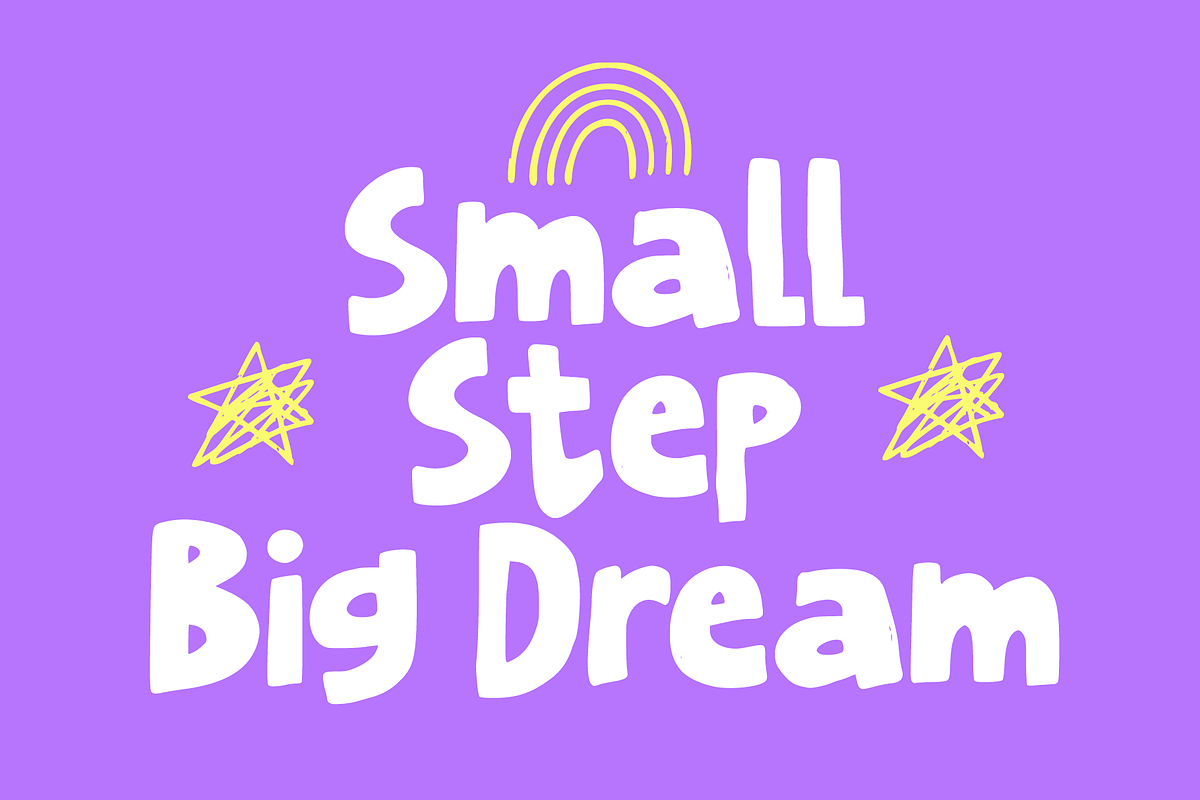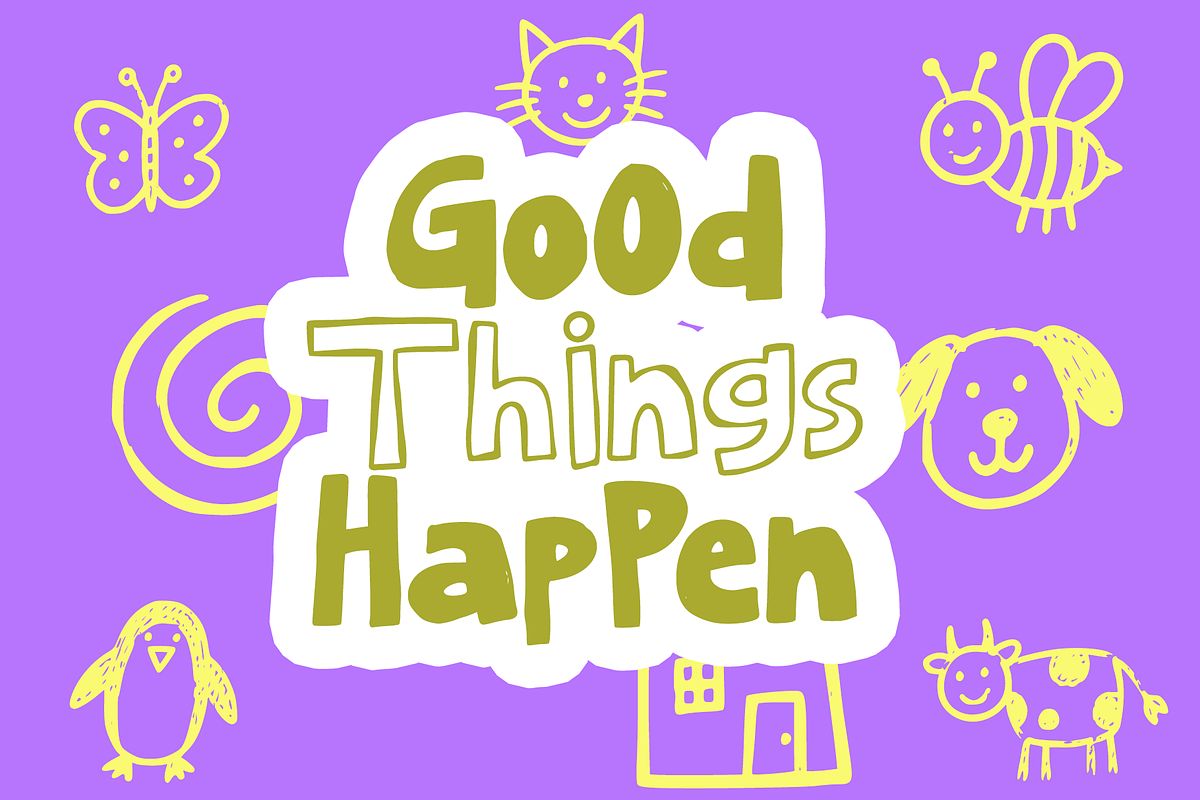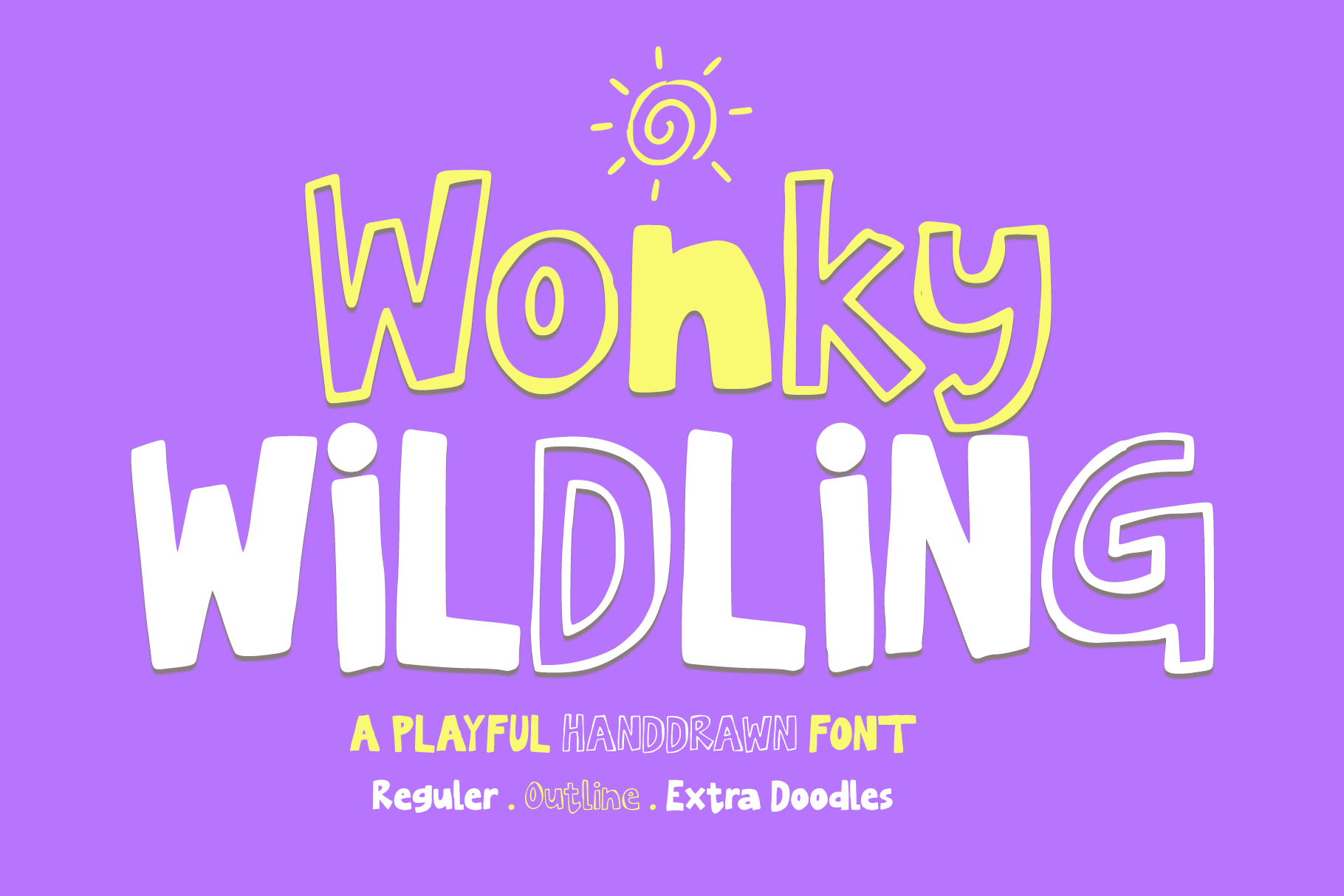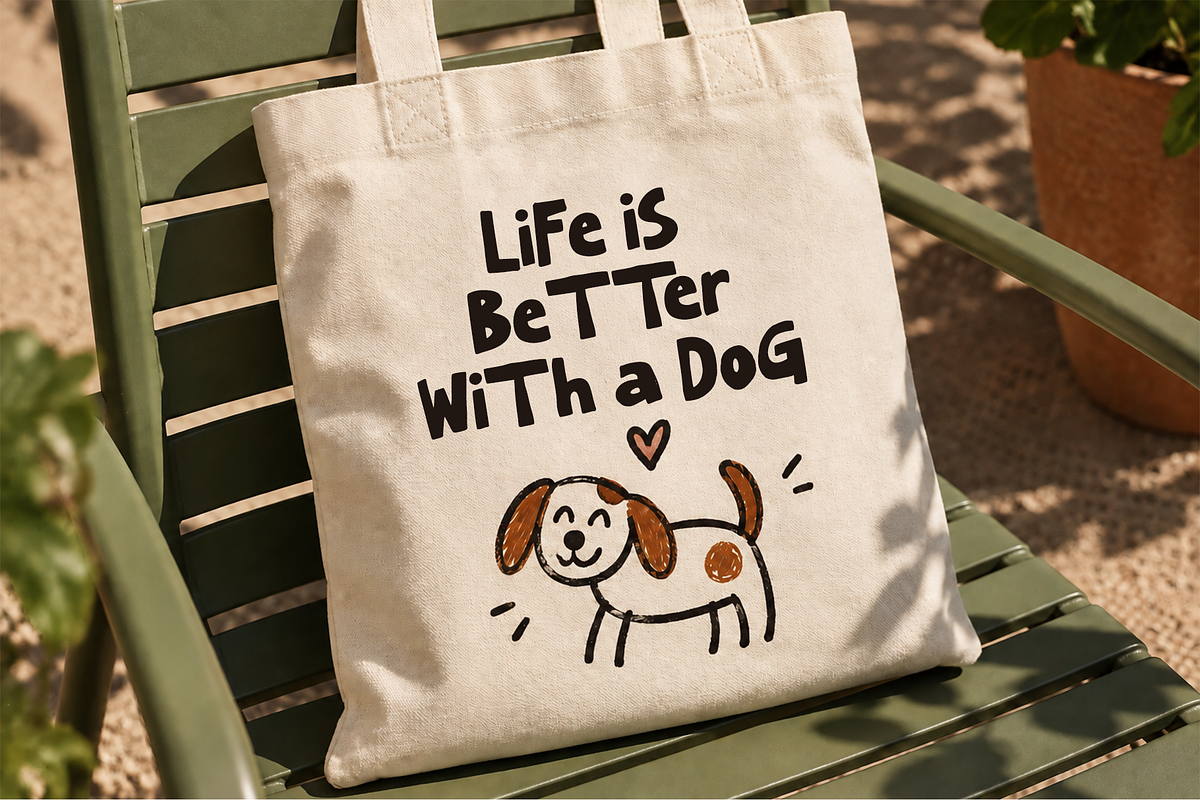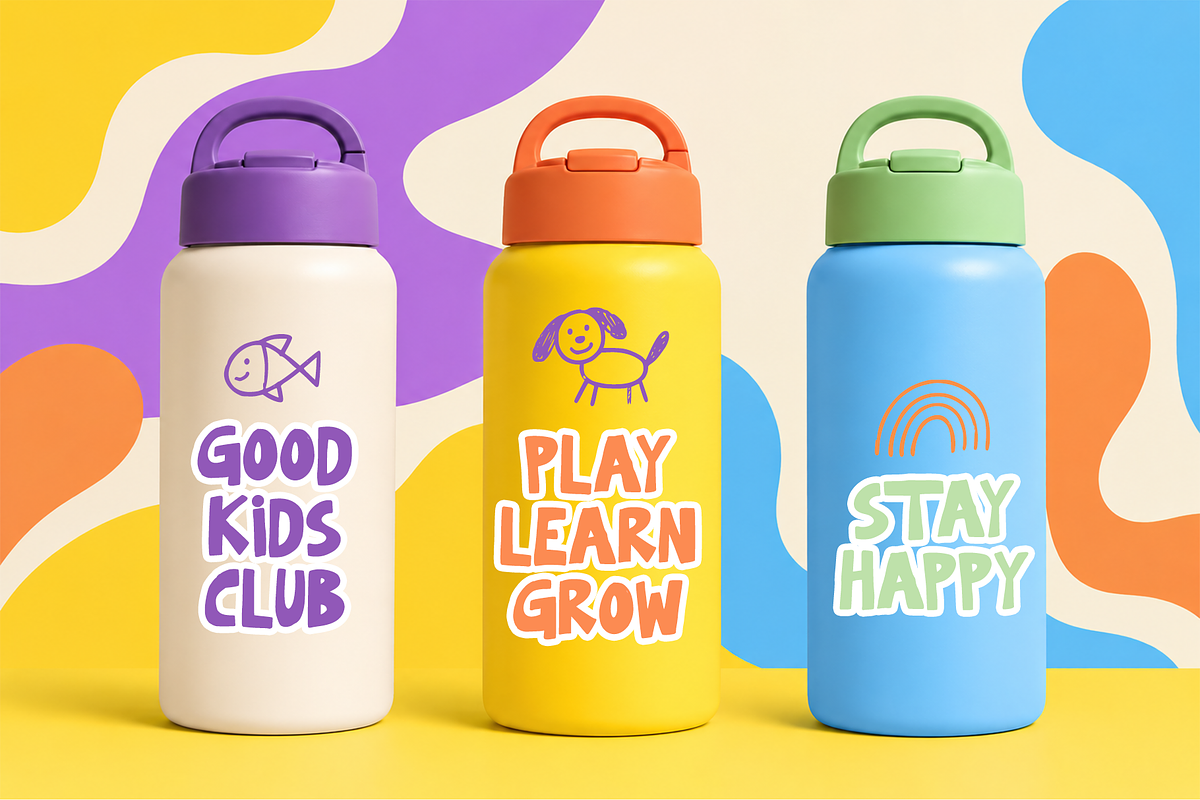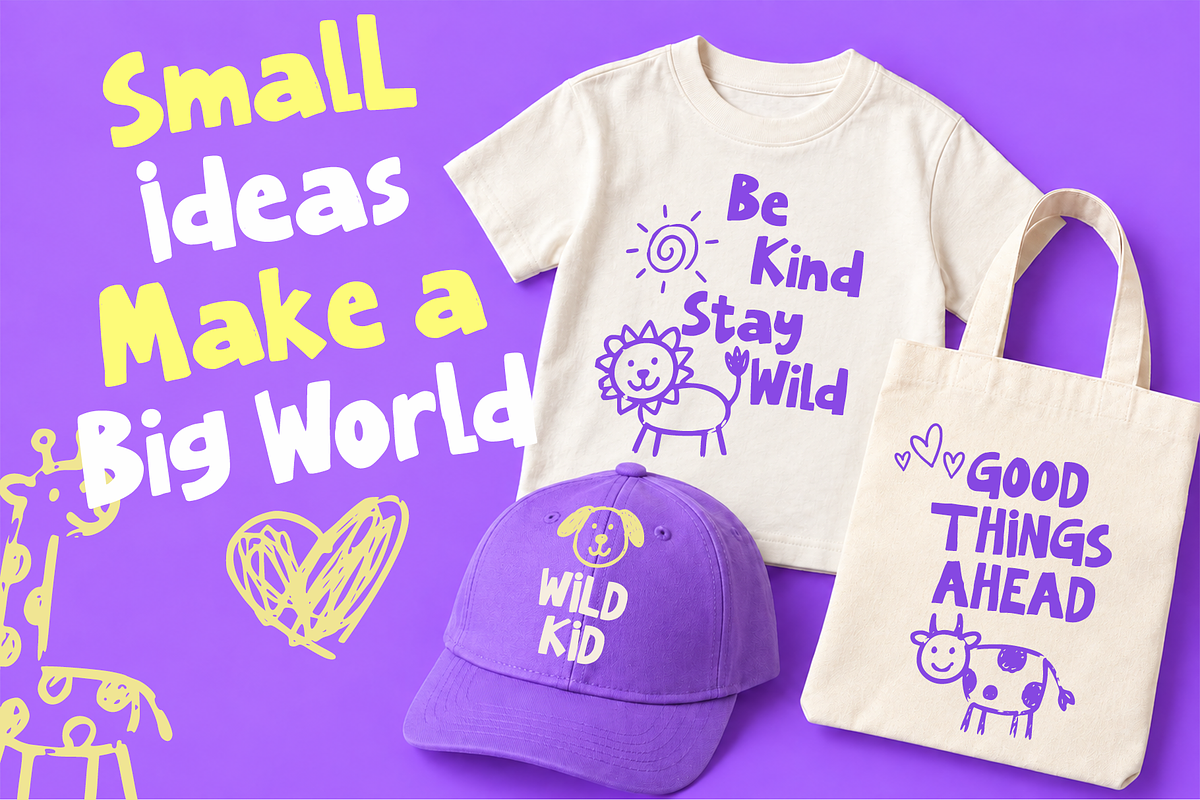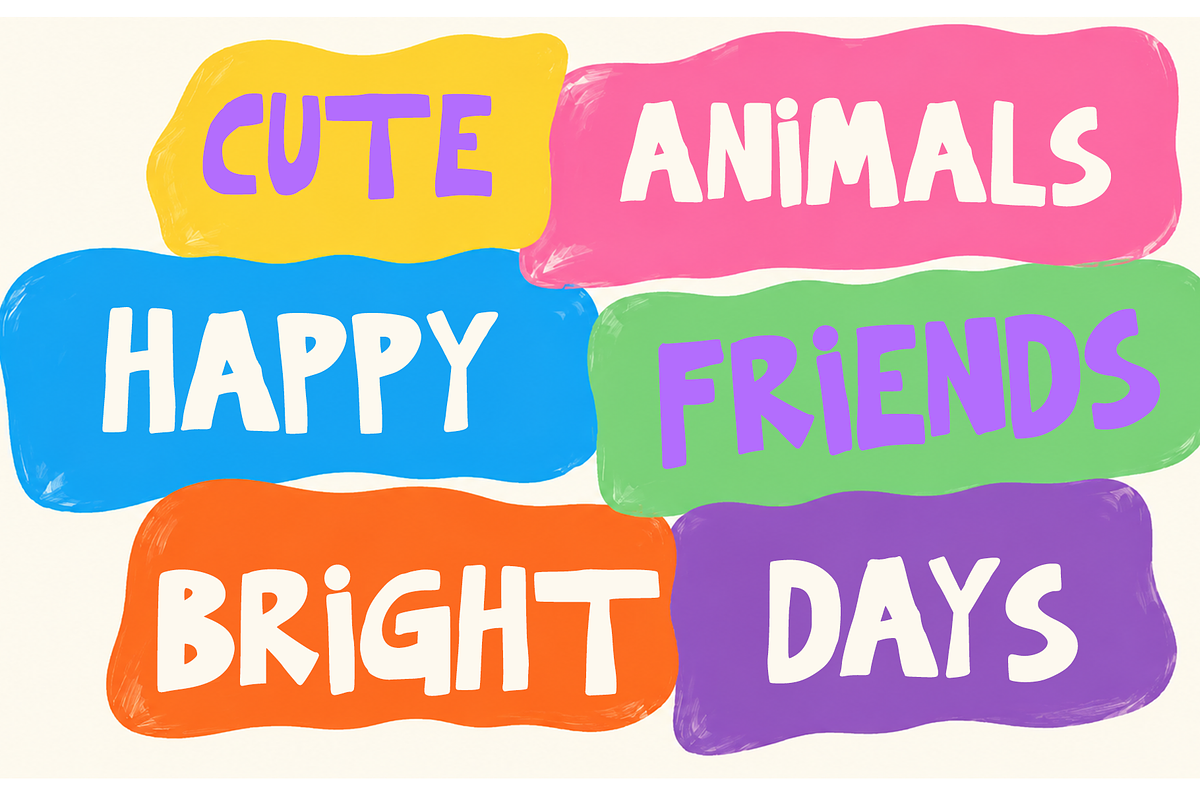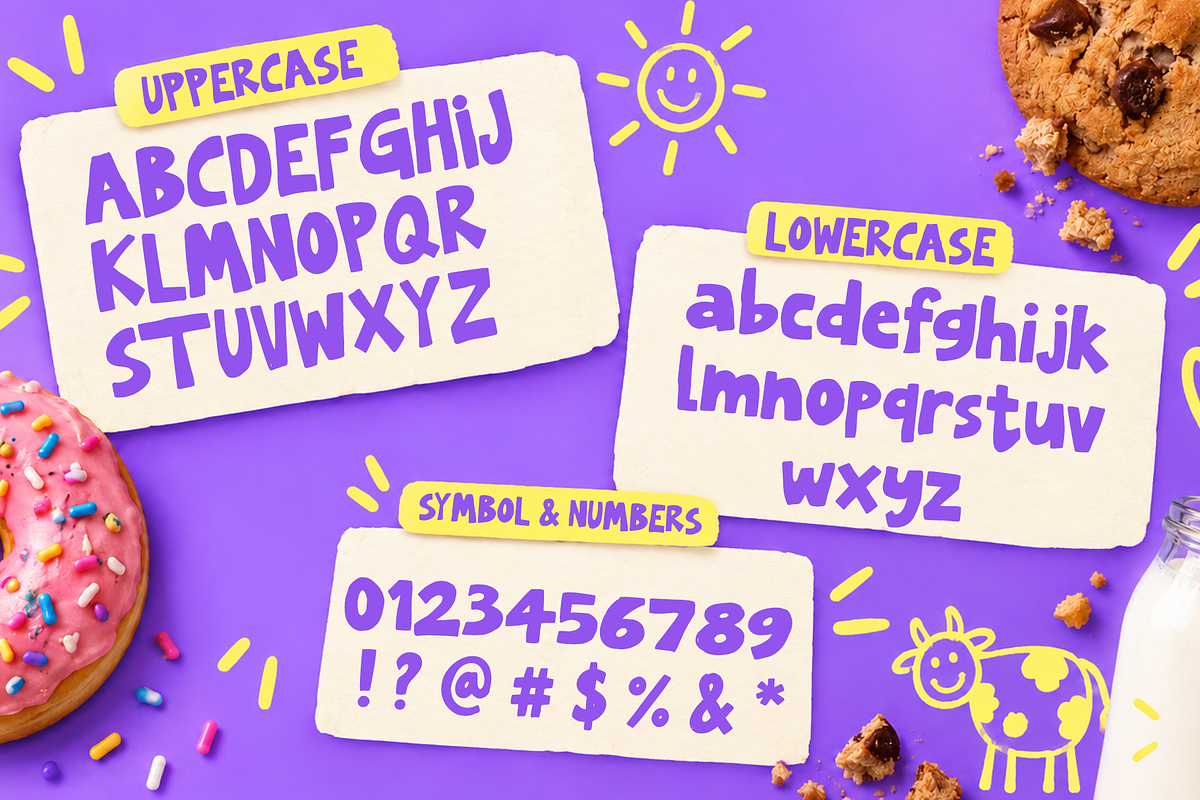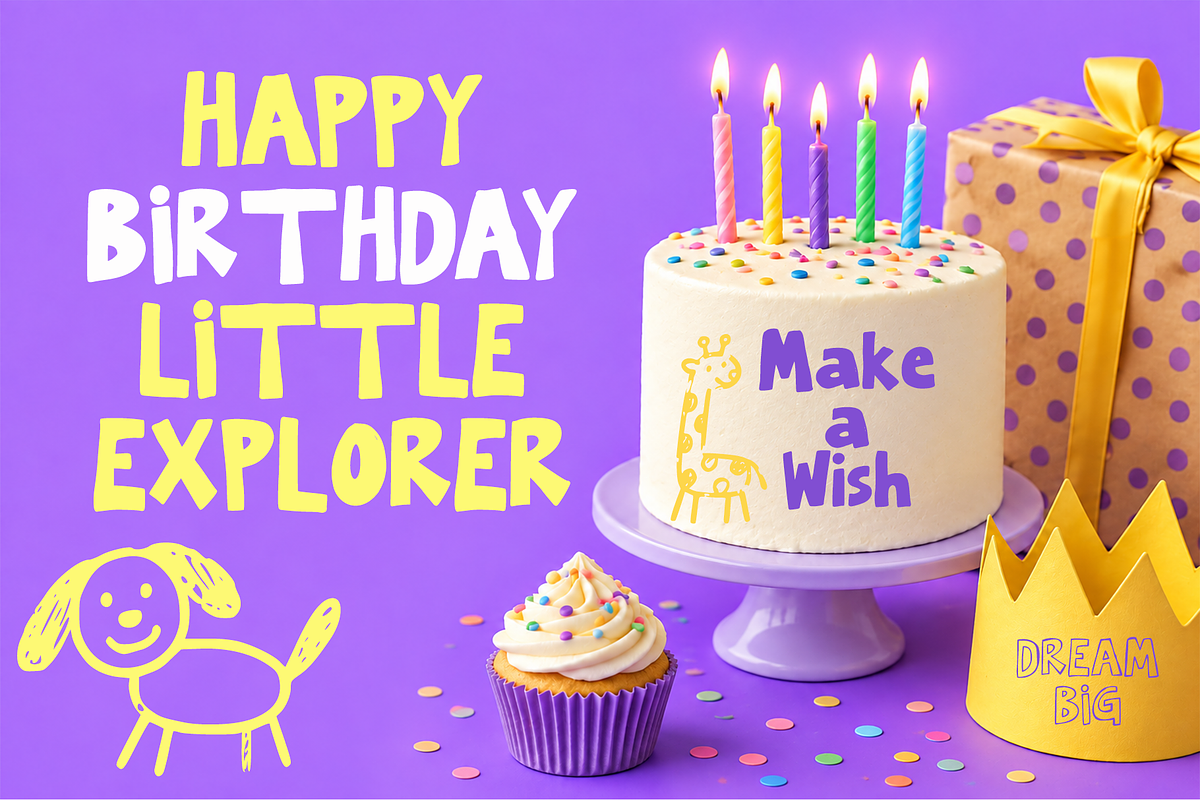
WONKY WILDING is a playful font
WONKY WILDING is a playful hand-drawn display font full of personality, charm, and quirky handmade character. With its irregular shapes, chunky letterforms, and fun organic curves, this font brings a cheerful and creative feel to every design.
Designed to look naturally imperfect and authentically handmade, Wonky Wilding is perfect for projects that need a fun, youthful, and expressive touch. The font includes Regular and Outline styles, plus a collection of extra doodles to make your designs even more playful.